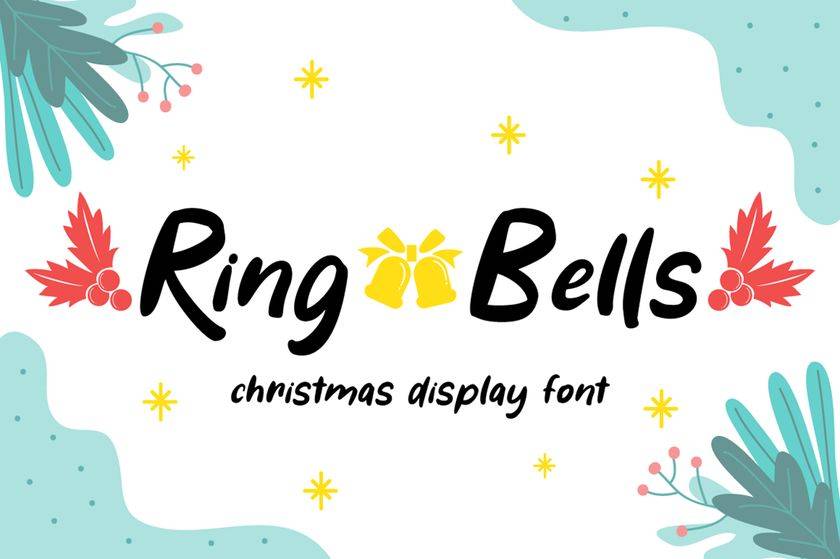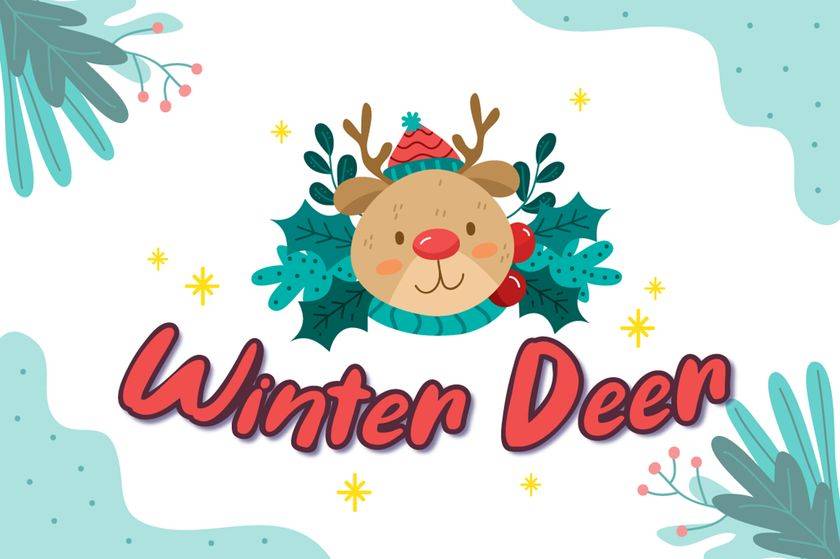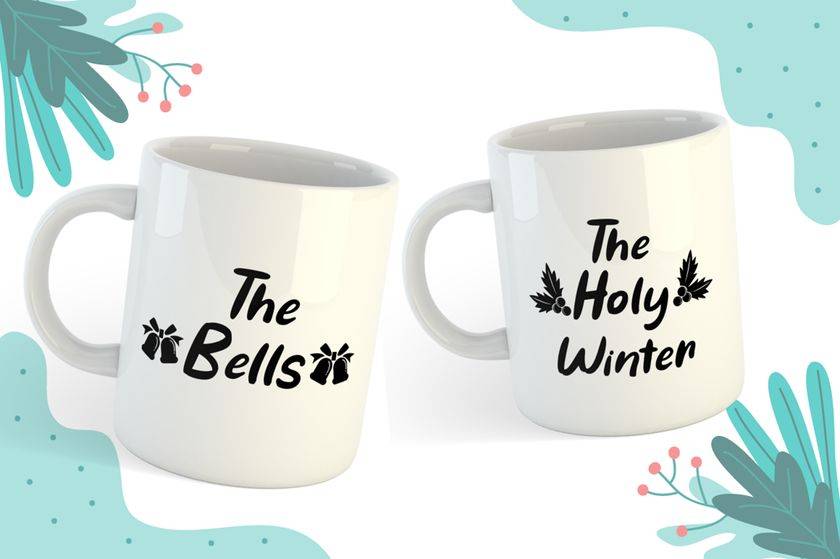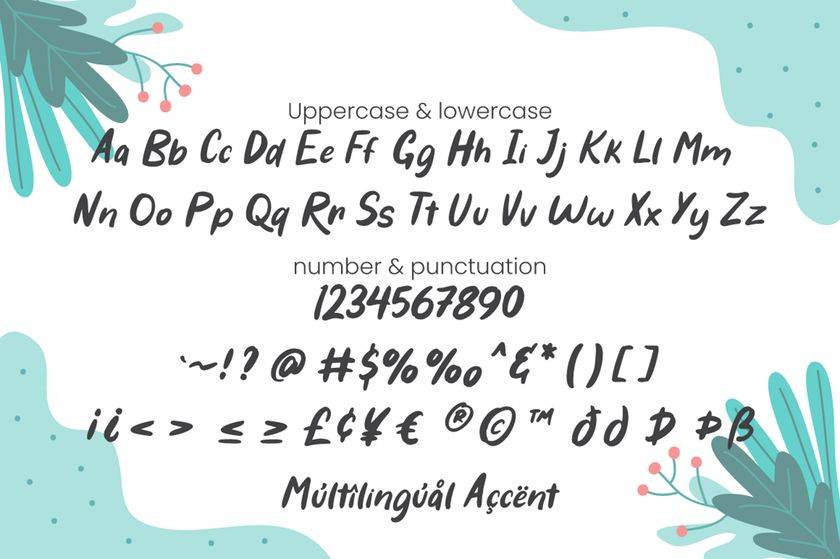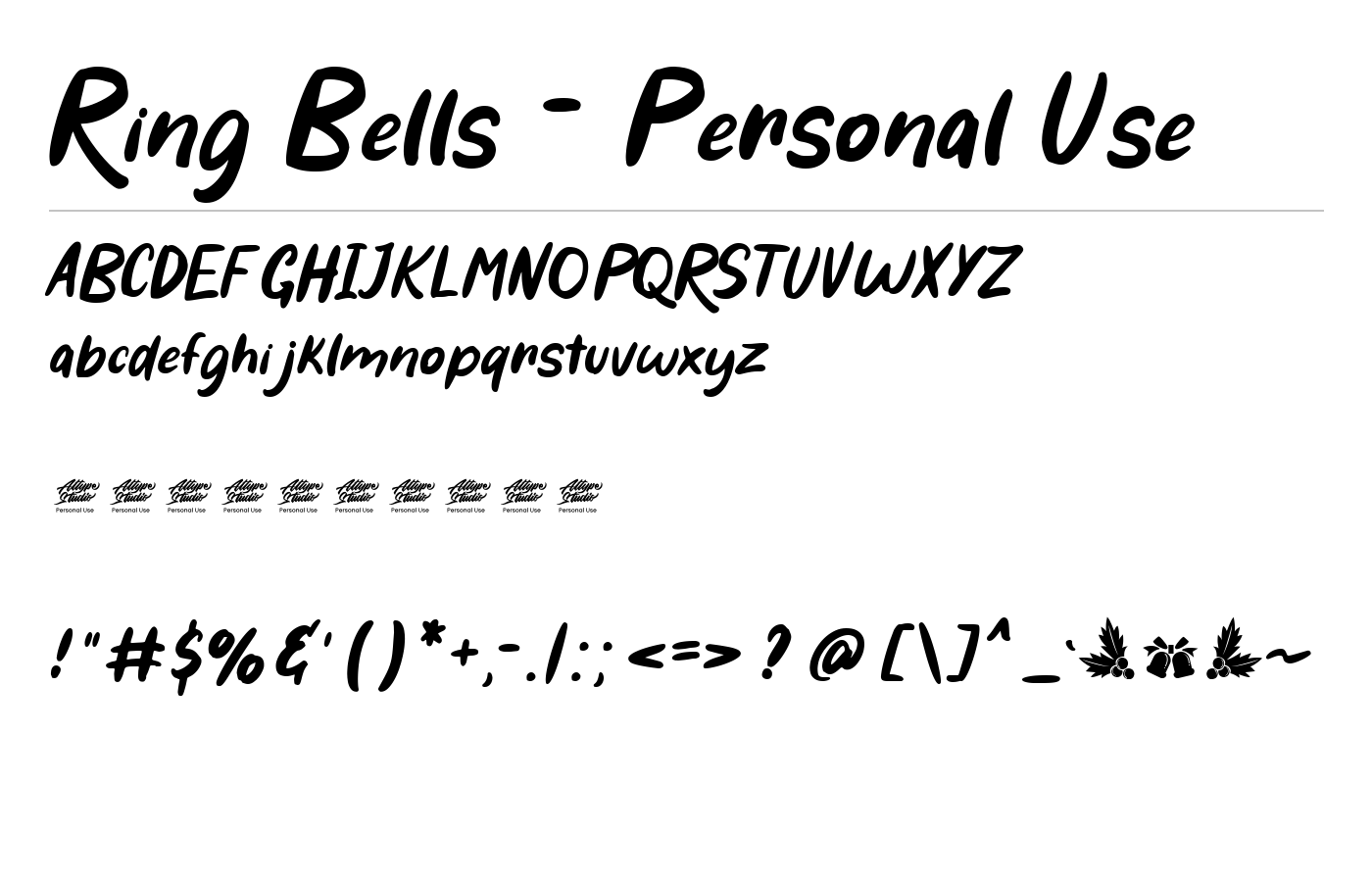
Ring Bells is a casual, handwritten sans serif font with a playful and friendly personality. It features smooth, rounded strokes with moderate contrast and an informal feel, making it perfect for personal projects, invitations, and creative branding that wants to evoke warmth and approachability. Its lively letterforms and expressive style work well in headlines and logos aiming for a relaxed, inviting vibe.
Ring Bells Font
About Ring Bells Font
| Font family | Ring Bells Font |
| Release date | 2020-05-30 |
| Designer | Fadli Ramadhan Iskandar |